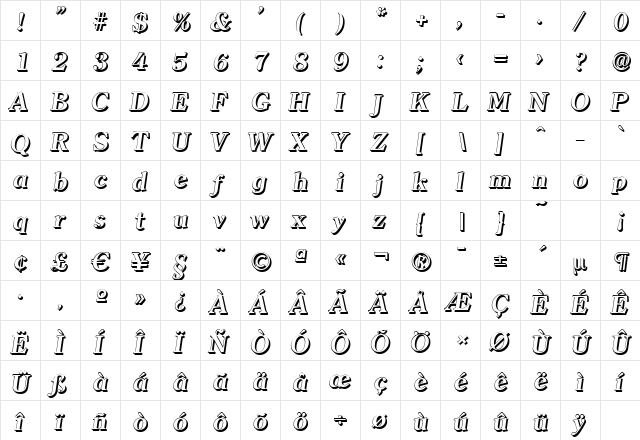
ClearfaceShadow BoldItalic Font Preview
Design Context for ClearfaceShadow Typeface
ClearfaceShadow brings ornamental detail and strong personality to headlines and identities, where visual impact matters more than quiet functionality. The dynamic lean of this cut emphasises speed and emphasis in any layout. The heavy weight commands attention and anchors typographic hierarchies.
Font Pairing: Pair with a clean neutral sans-serif for body copy to let ClearfaceShadow's character lead without overwhelming the composition.
Pro Tip: Treat ClearfaceShadow as the centrepiece of your typographic hierarchy. One strong heading set in a decorative face can carry an entire layout.